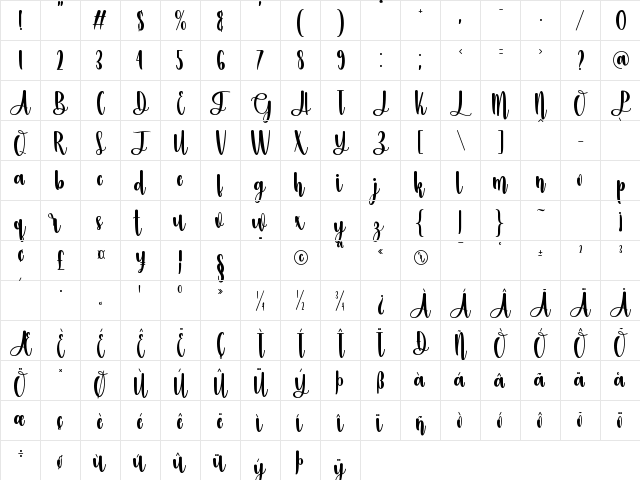
Ameliya Regular
| Foundry | FallenGraphic |
| Designer | Vava Aryanto |
Design Context for Ameliya Typeface
Ameliya is a composed and adaptable typeface that performs quietly and consistently across a wide range of design contexts.